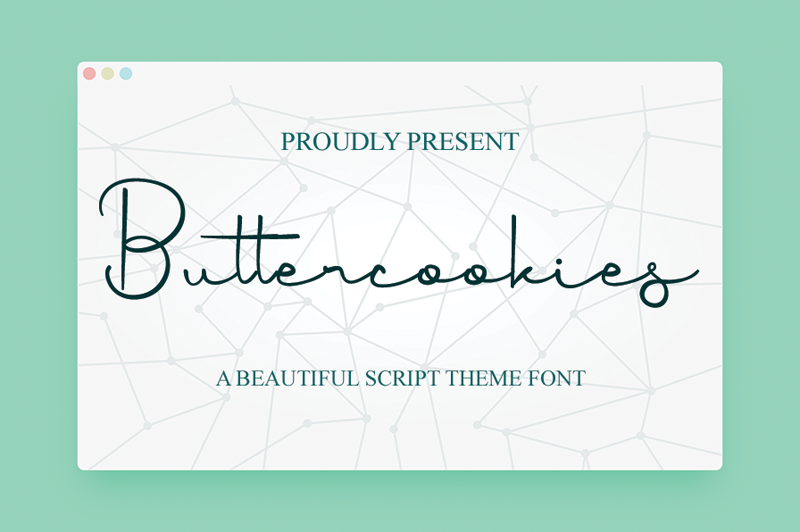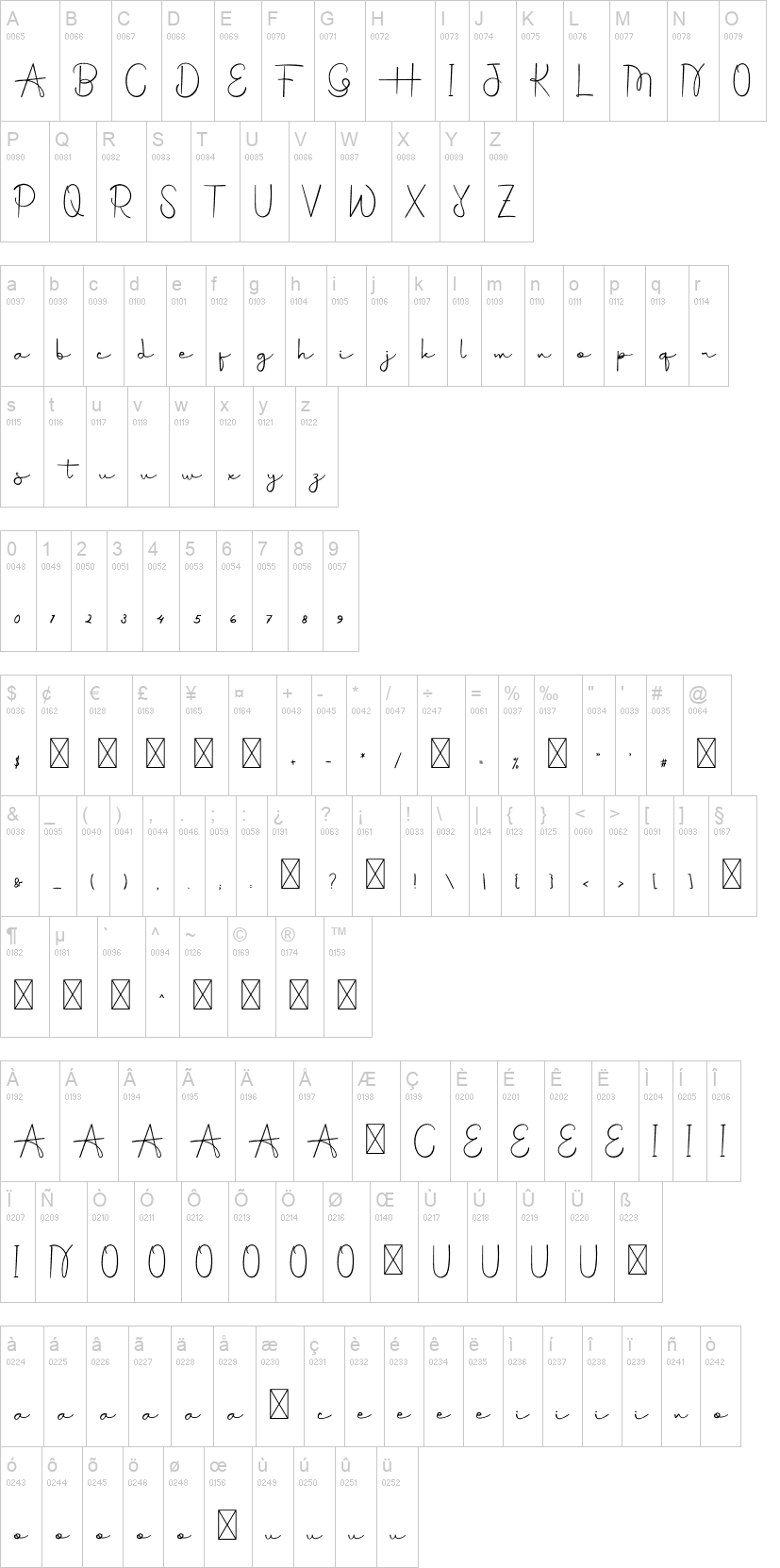
Note of the authorButter Cookies is a thin and cursive script font. This font is neatly crafted and highly detailed. Whatever the topic, this font will be a wonderful asset to your font library, as it has the potential to enhance any creation.